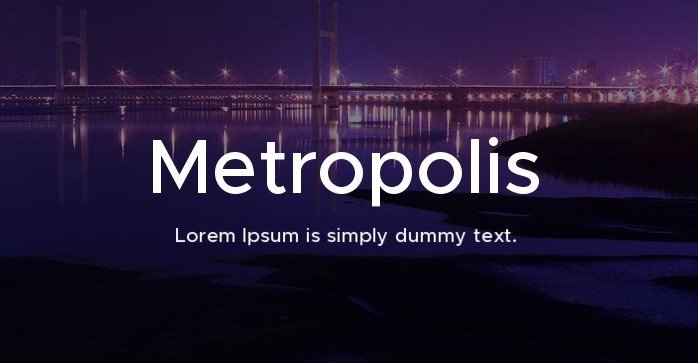
The most important thing of this great font is its beautiful and its sans serif geometric designs which is available in all the caps small and capital caps.
Introducing the elegant and straightforward Metropolis Font, known for its clean and unique design that offers excellent readability and ease of reading. This font pairs well with the classic Courier font, making it a great choice for combination.
The most important thing of this great font is its beautiful and its sans serif geometric designs which is available in all the caps small and capital caps. All the style of this font is very much useful for creating anytype of projects.
It has 300 beautiful glyphs and great textures which is the great thing of this font. This font easily bind your thoughts and imagination to the graphic and image representation. There are numerous features of this font available free download. Lets deep dive into more details of this font.
The Metropolis Font is the famous and amazing typeface that was product of the famous font fondry that is FondFont.
Of course you can use the Metropolis for your logo as well as all other graphic designs projects.